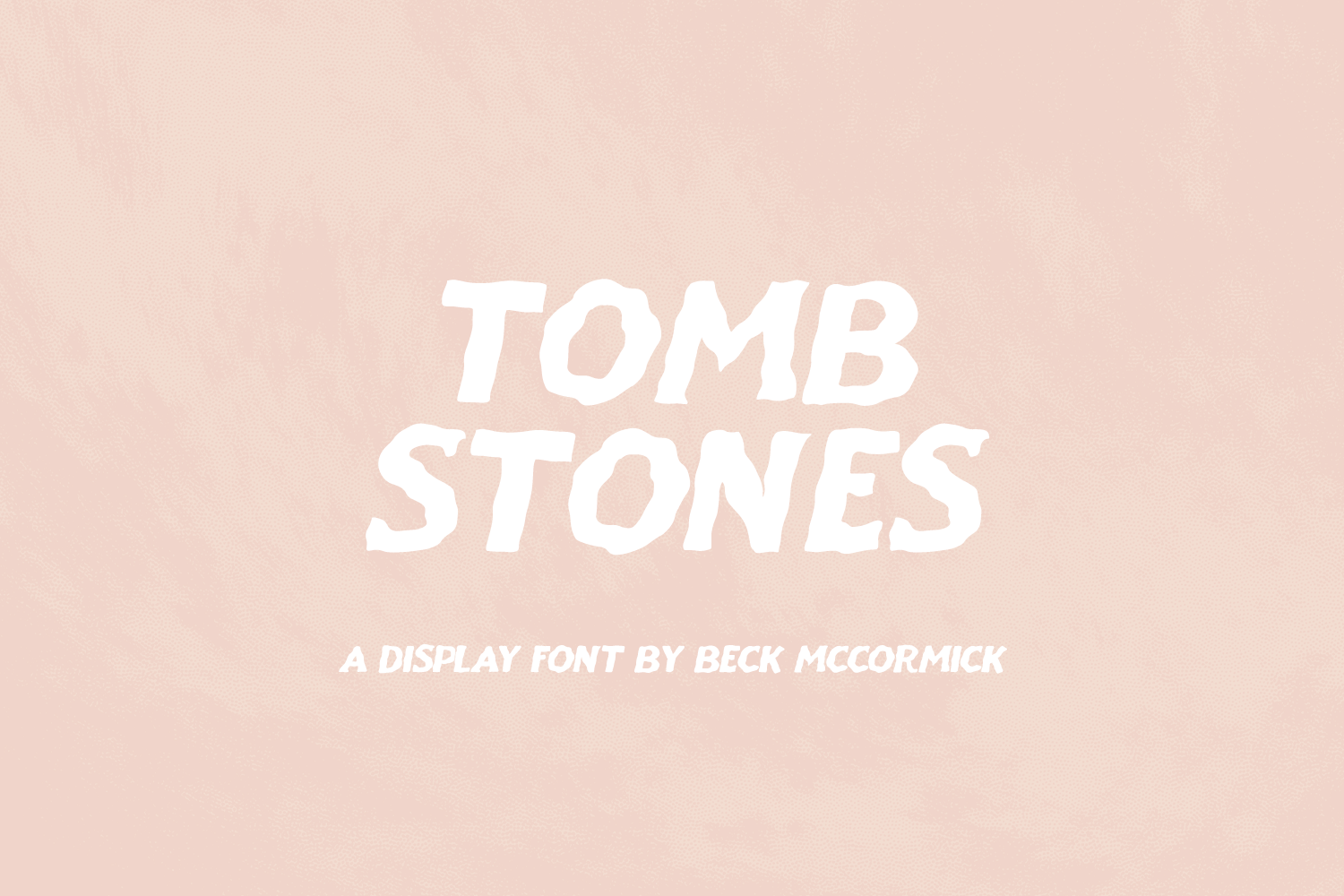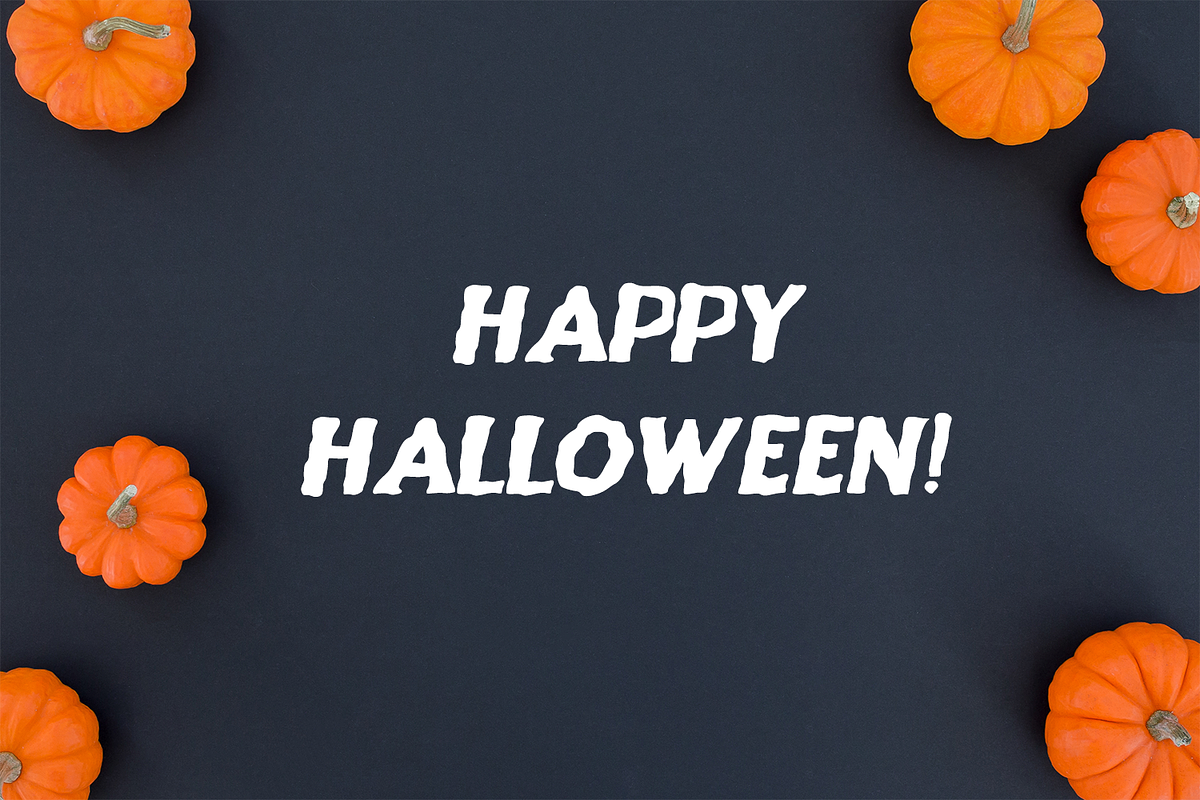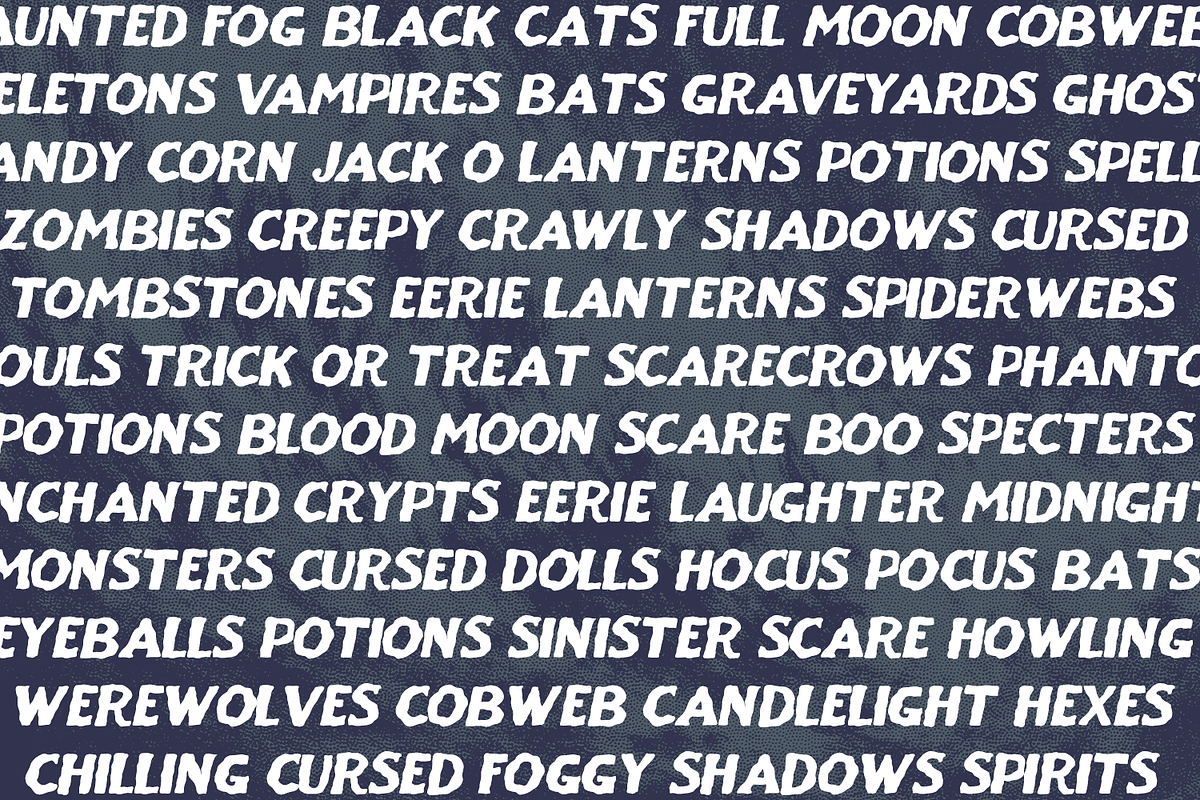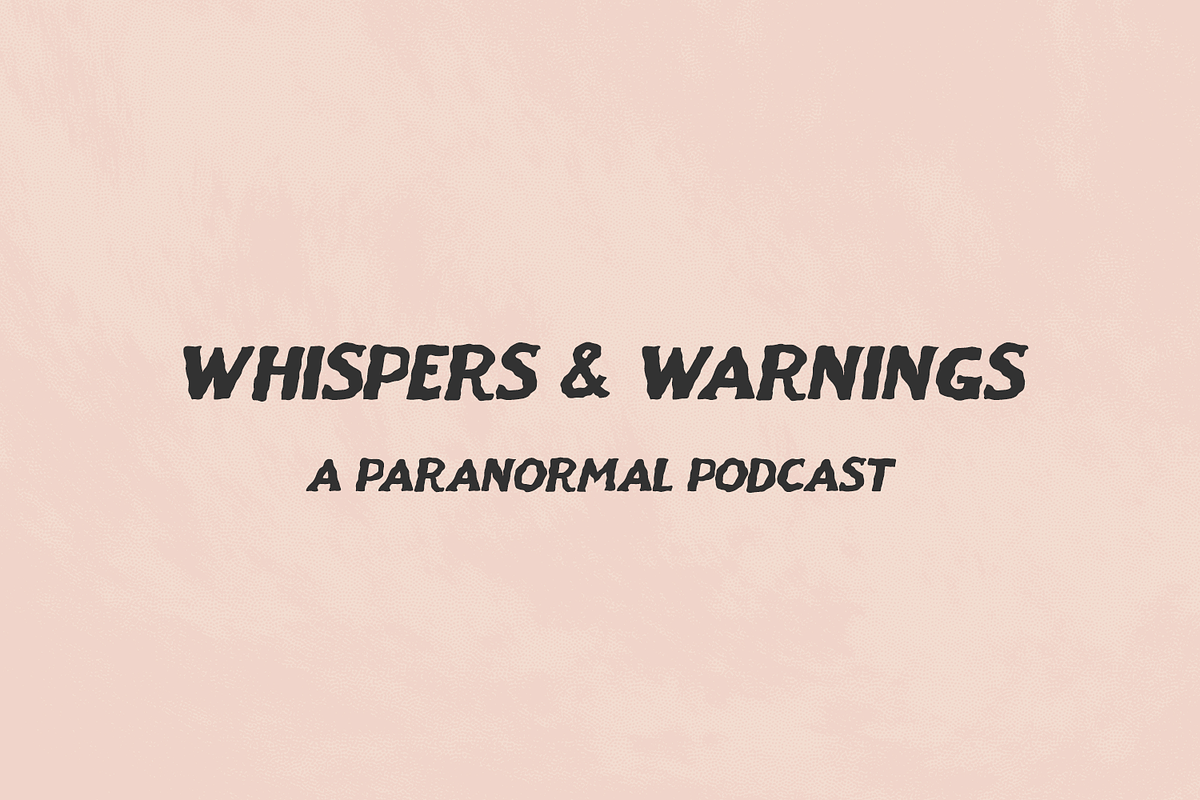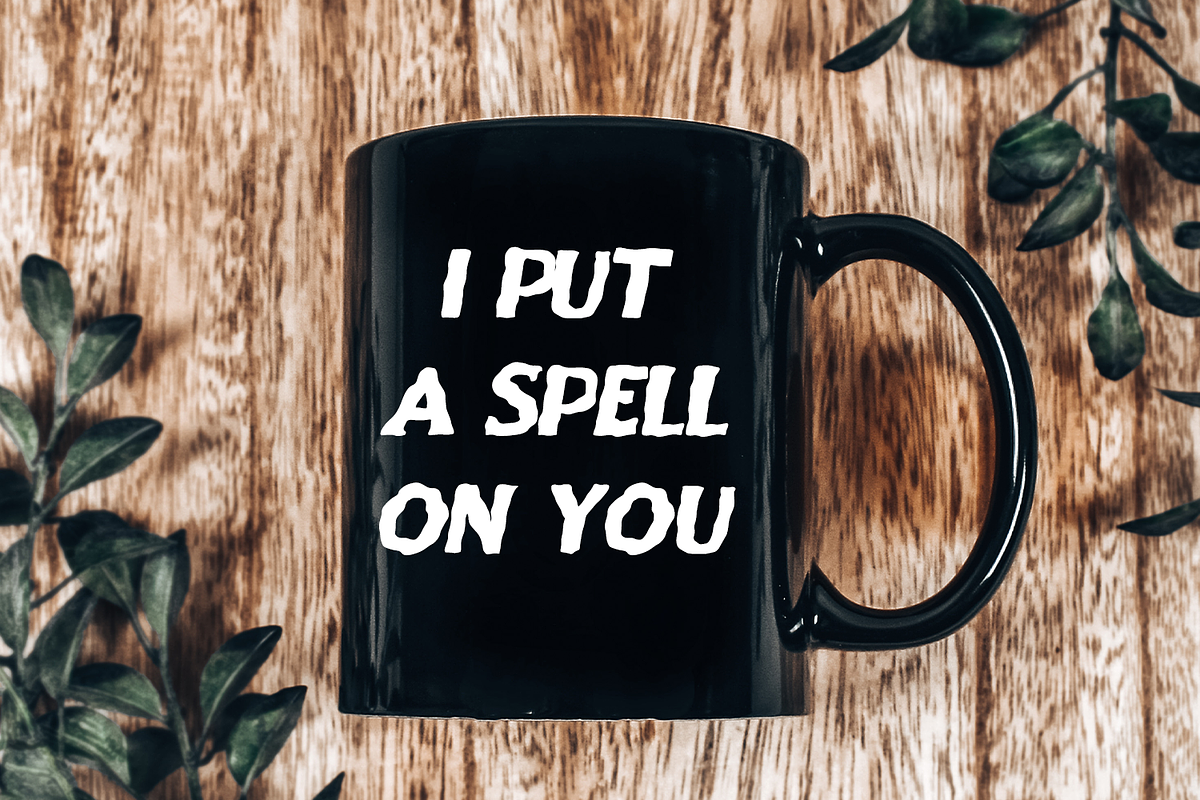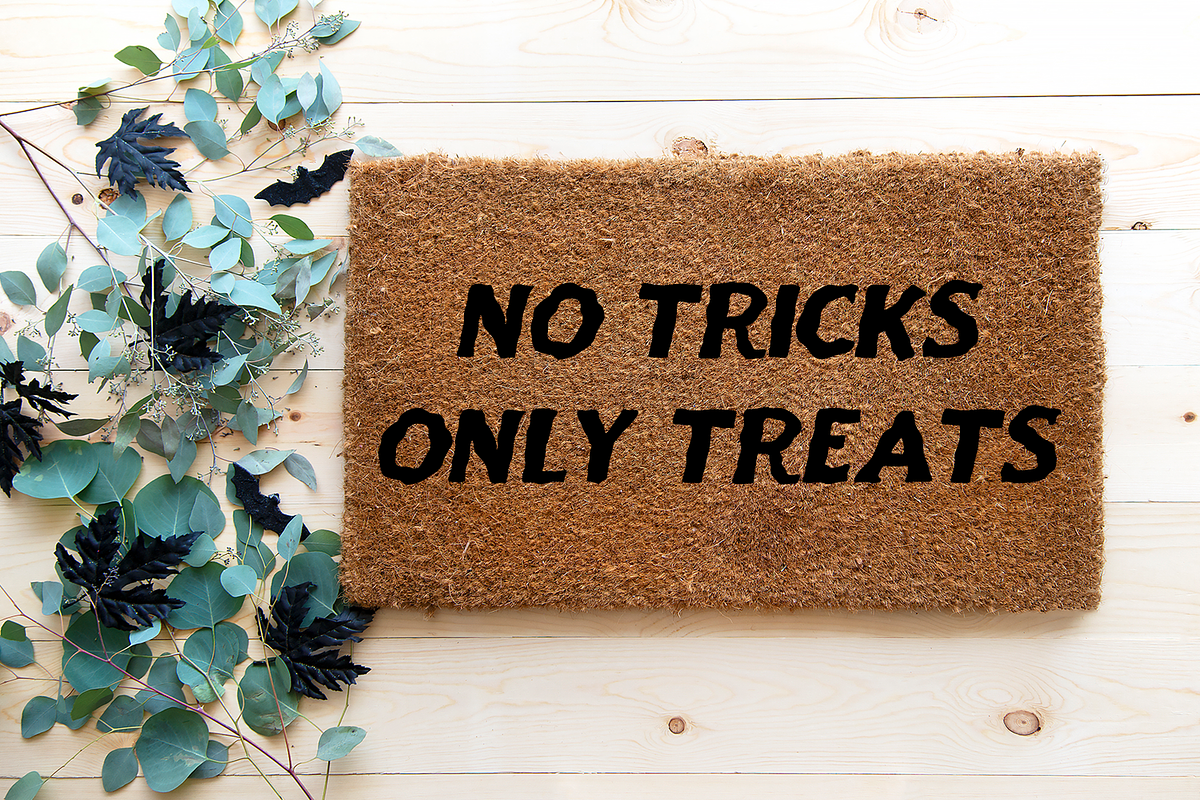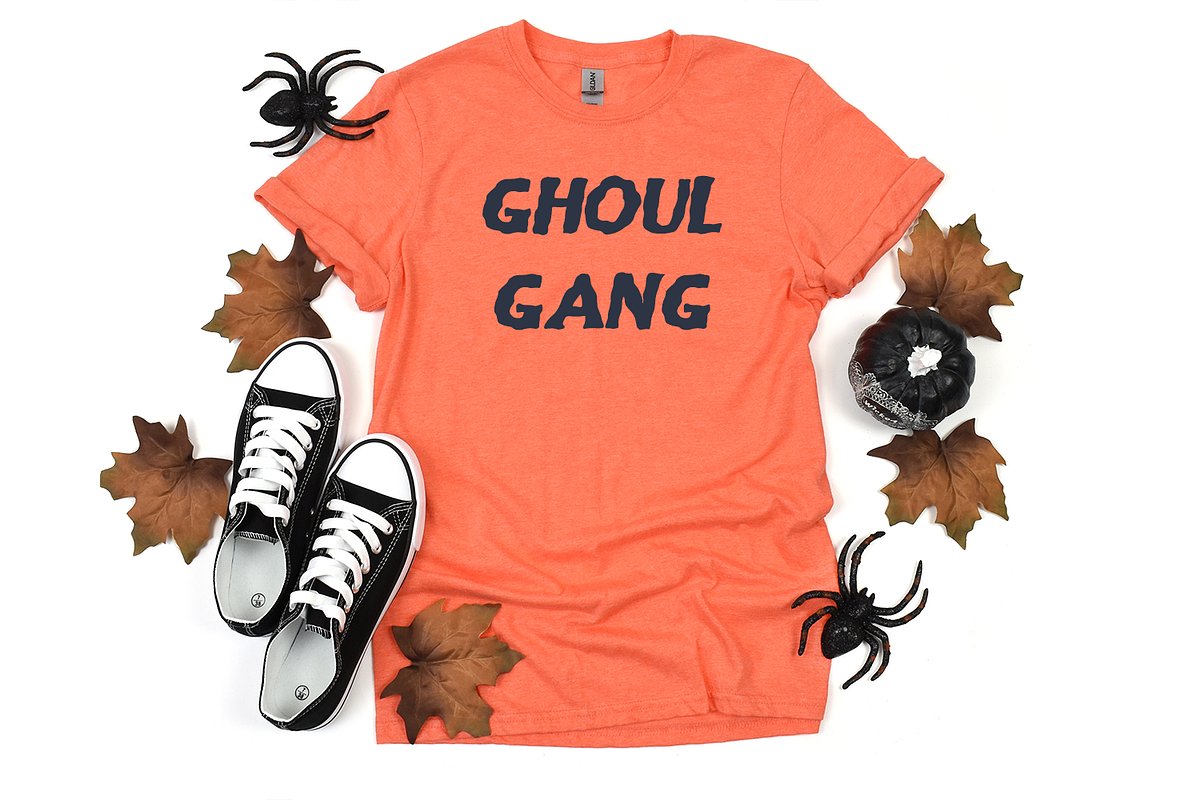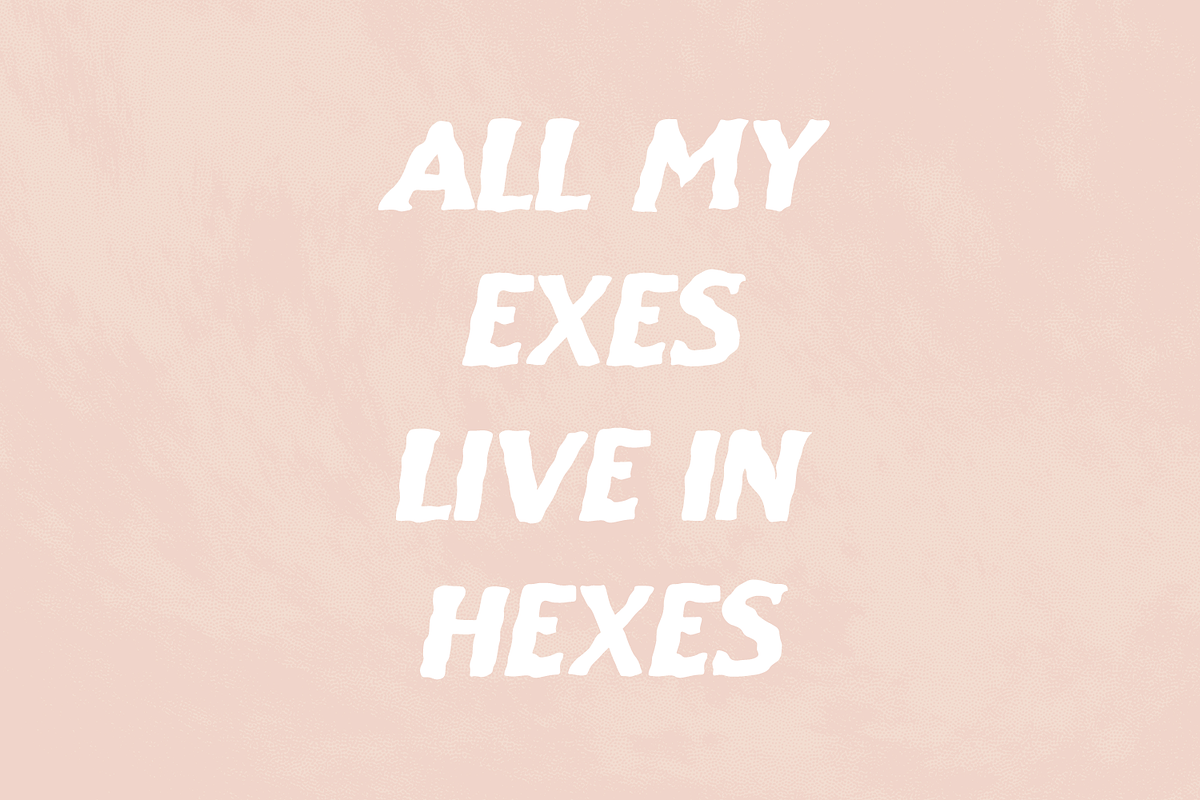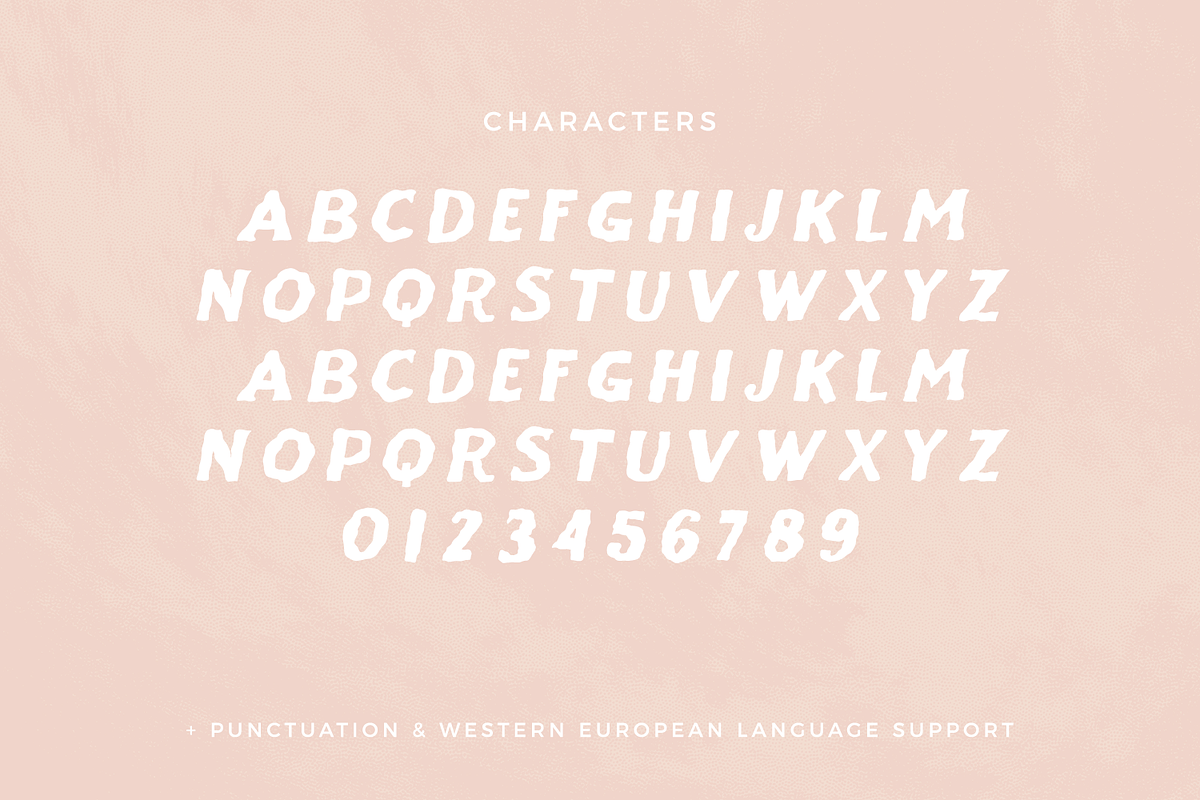
Tombstones Display Font
Introducing Tombstones, a creepy stony font. Tombstones is a fantastic fit for your spooky graveyard designs. This font is well-suited for Halloween crafting projects with your Cricut or Silhouette machine, and can be used for things like shirts, signs, labels, marketing materials, social media, SVG designs, greeting cards & other print items, and even spooky logos & branding.
- full upper + lowercase characters (Tombstones is all-caps, so uppercase characters are programmed into lowercase spots for ease of use.)